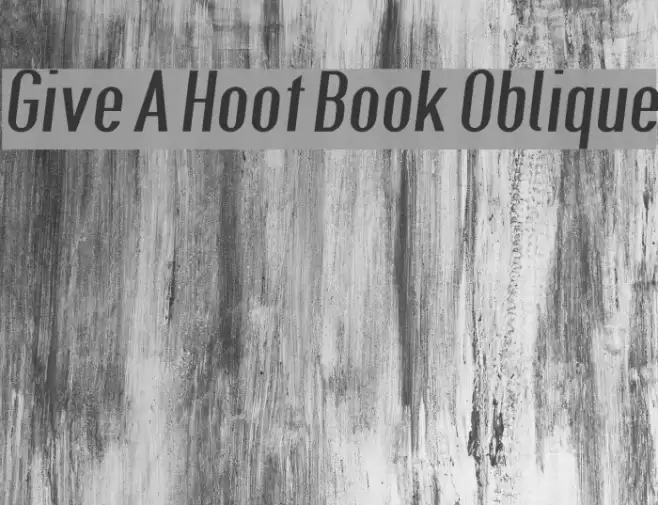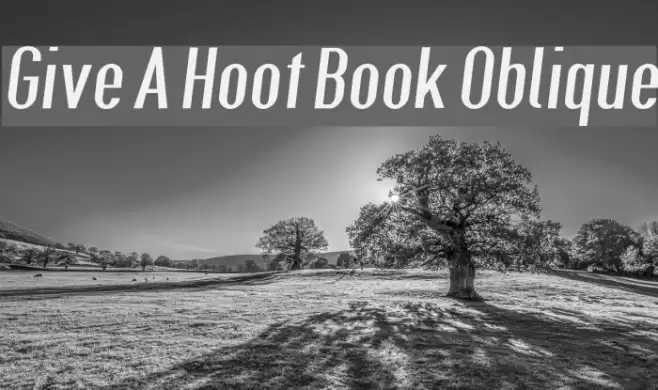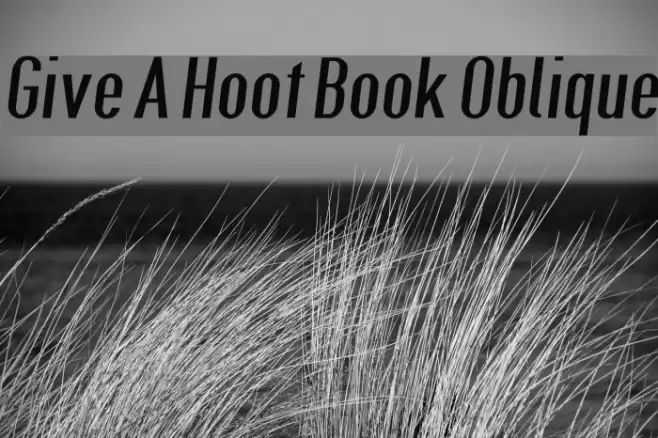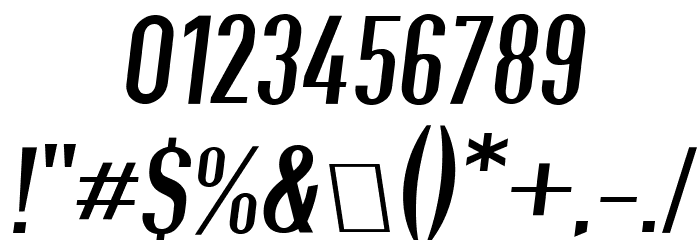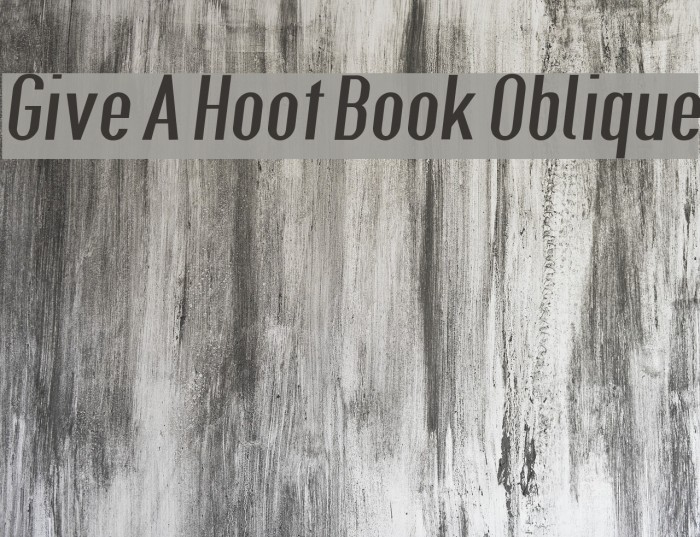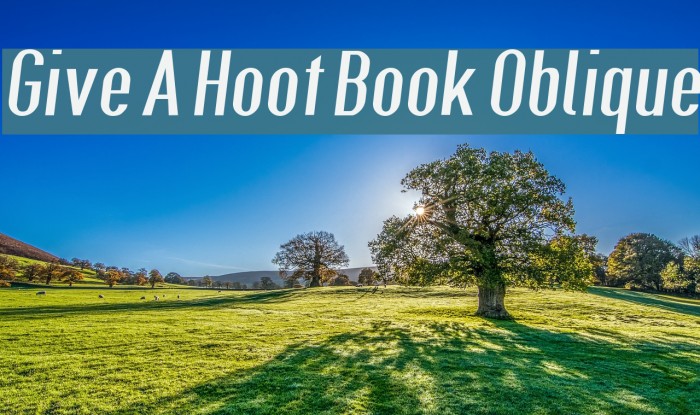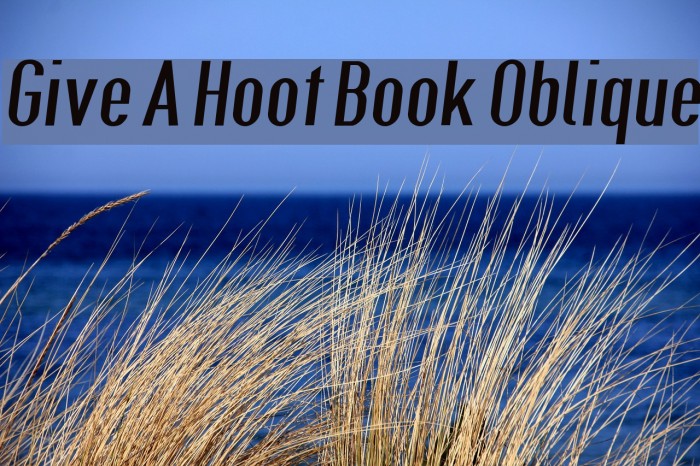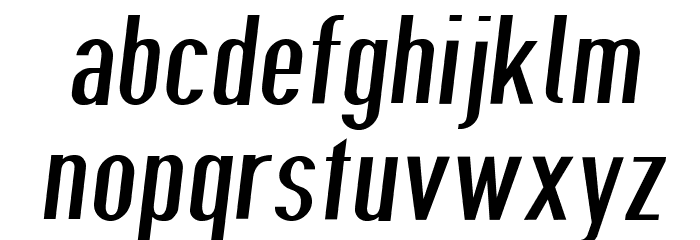
Give A Hoot Book Oblique Font
Give A Hoot Book Oblique Description
This font features a sleek and modern oblique style, characterized by its slanted, elongated letterforms that convey a sense of motion and dynamism. The uppercase and lowercase letters maintain a consistent slant, offering a cohesive look across all characters. The numbers and special characters follow the same oblique design, ensuring uniformity. The strokes are moderately thick, providing good readability while maintaining a stylish appearance. This font's design is both contemporary and versatile, making it suitable for various creative applications.
A modern oblique font with sleek, slanted letterforms and moderate stroke thickness from Uncategorized fonts.
- Proposed Projects: Ideal for branding, advertising, posters, and any project requiring a dynamic and modern aesthetic.